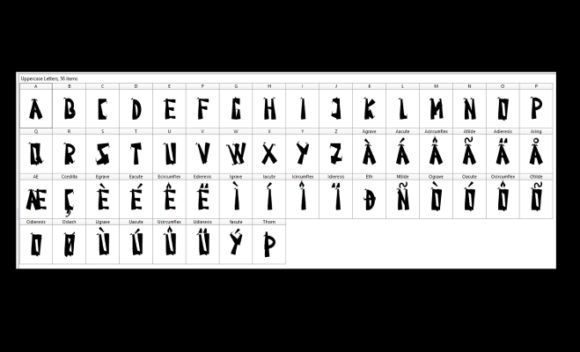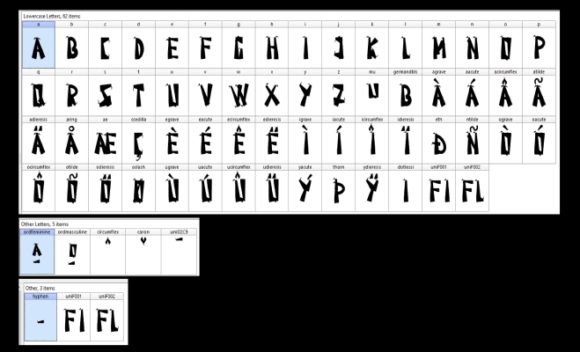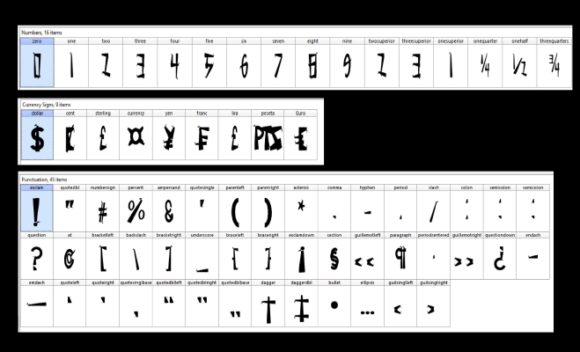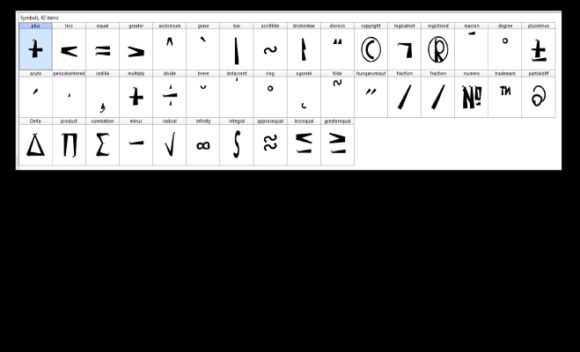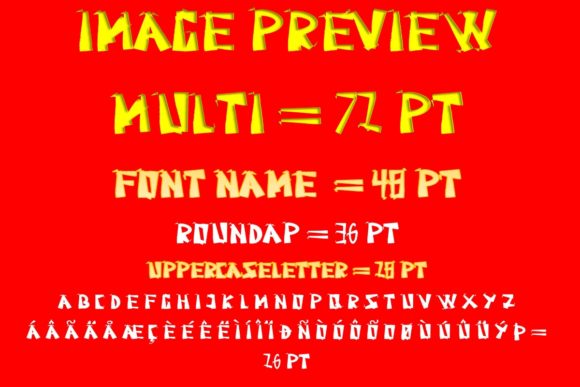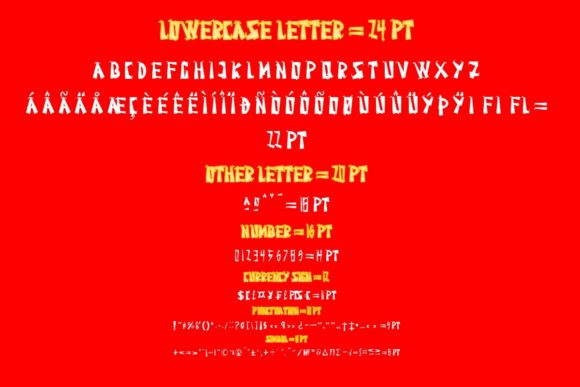
Introduction to Roundap Font Font
Fonts play a crucial role in design, and the Roundap Font font is a typeface that brings both character and versatility to any project. Whether you’re working on a branding project, a website, or a print design, the Roundap Font font offers a unique style that can elevate your work.
Roundap is a bold display font featuring unique characters.
Fall in love with its playful look & feel .
Key Features of Roundap Font Font
Why Choose Roundap Font Font?
The Roundap Font font is more than just a typeface – it’s a design tool that helps you communicate your message with style and clarity. Its unique character set and versatile design make it suitable for a wide range of applications, from elegant invitations to bold headlines.
With its carefully crafted letterforms and balanced proportions, the Roundap Font font ensures readability and visual appeal across all mediums.
What makes Roundap Font font special?
The Roundap Font font stands out with its unique design, exceptional readability, and versatility across various design applications.